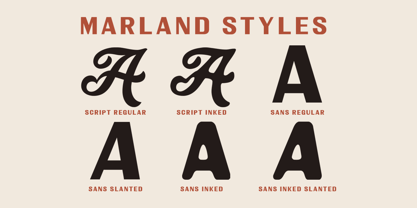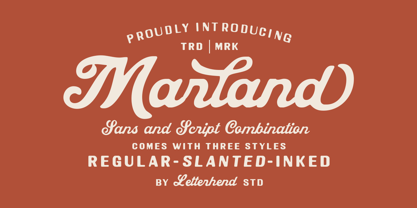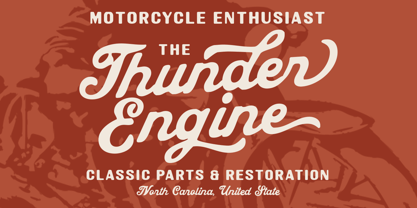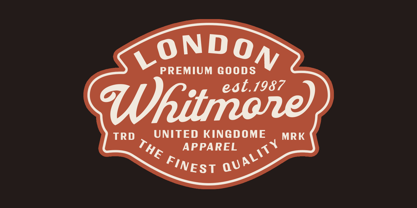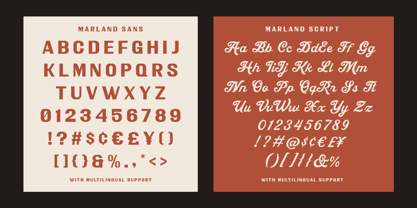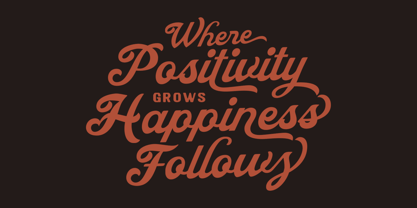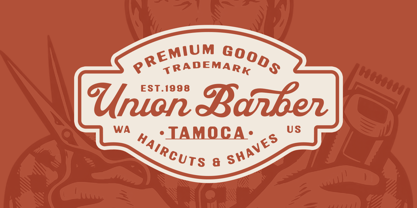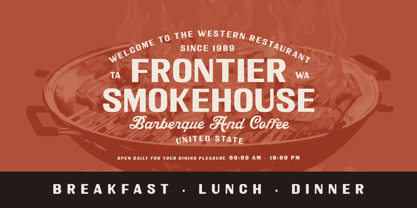
Marland
by Letterhend
The Marland Font Family was designed by Hendry Juanda and published by Letterhend. Marland contains 6 styles and family package options. More about this family
Marland blends a confident vintage script with a sturdy sans companion, creating the kind of lettering you’d expect to find on old workshop signs, heritage product labels, and well-worn storefronts. The flowing script carries smooth curves, generous swashes, and a handcrafted rhythm, while the bold sans adds structure and balance for striking logo work and layered typography.
Features :
• Uppercase & lowercase
• Script & Sans (Regular, Slant & Inked Version)
• Numbers and punctuation
• Multilingual Support